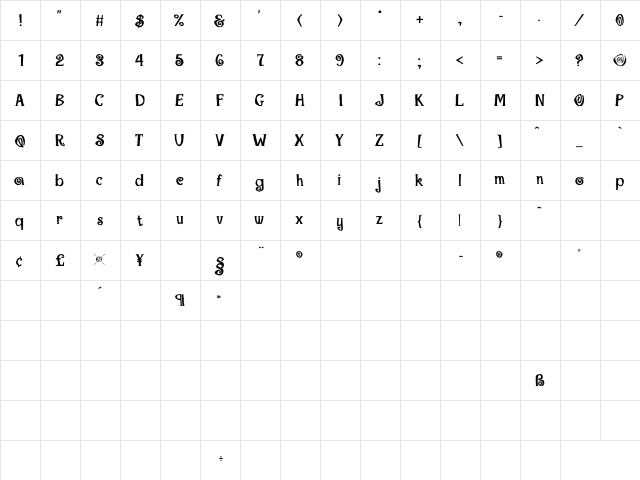
Copacabana Bold Font Preview
Copacabana Bold
Design Context for Copacabana Typeface
Copacabana is a composed and adaptable typeface that performs quietly and consistently across a wide range of design contexts. Its bold stroke weight gives it real presence on the page.